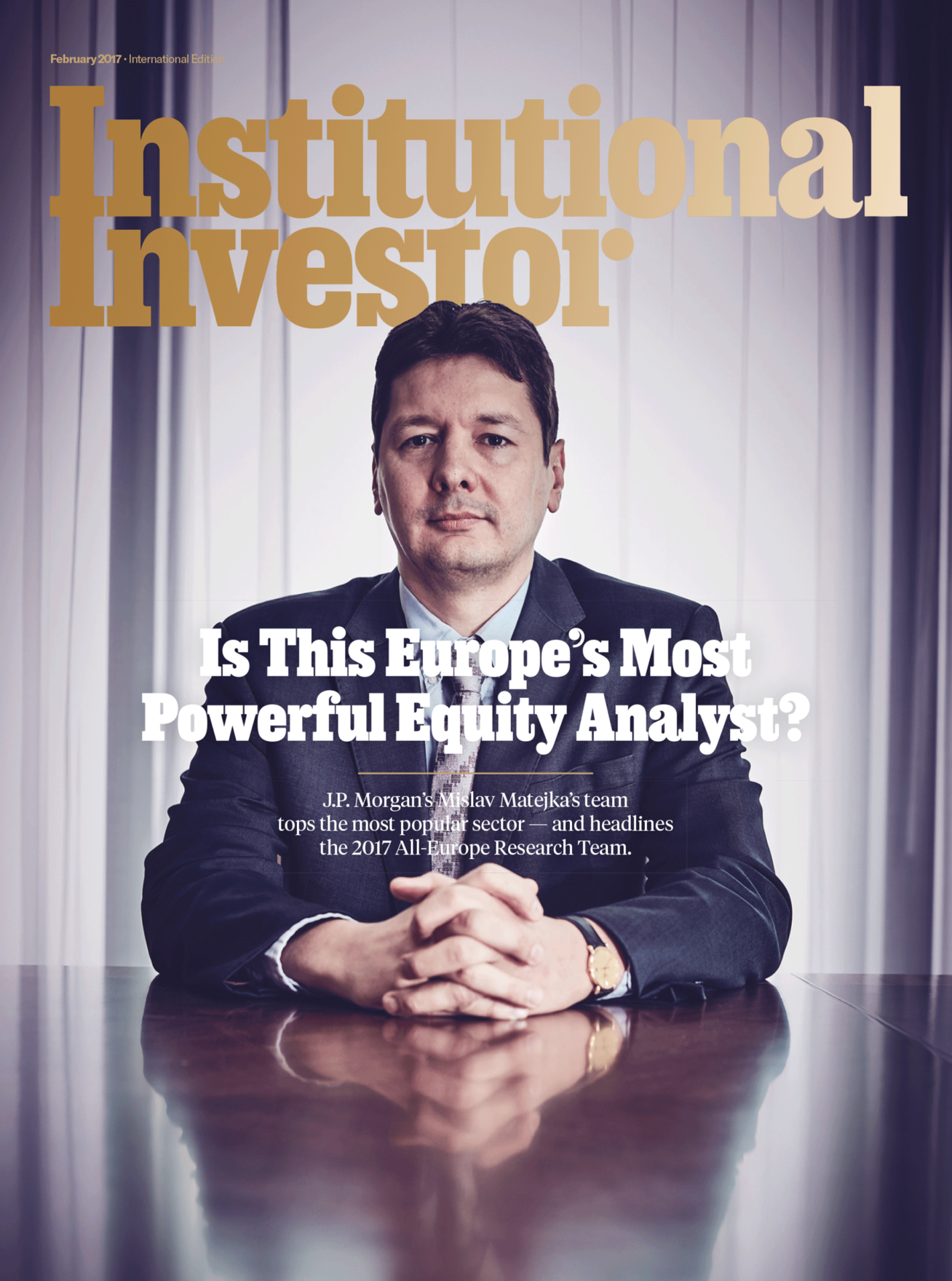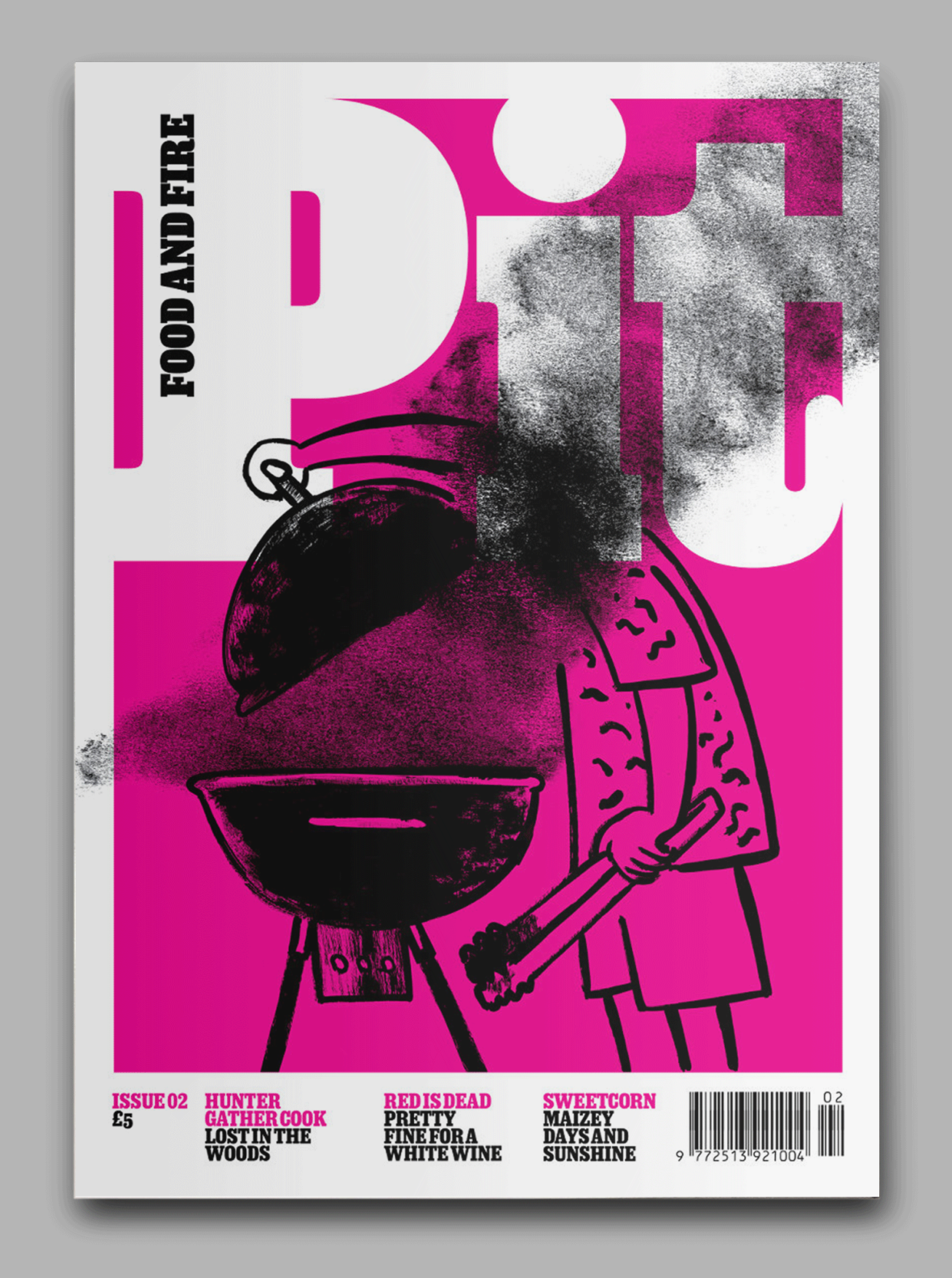
Bold, mechanistic, and characterful, Sunday Clarendon is an elegant slab serif designed in the vein of early Egyptian typefaces, including its namesake Clarendon. Sunday Clarendon is characterised by angular serifs and blunt terminals. The font has a distinctive voice and is available in a wide range of weights, from a delicate ‘Thin’ to an impactful ‘Black’ – the extreme weights are display-orientated, while the middle weights are carefully tailored for text.
| Font name: | Sunday Clarendon |
| Font category: | Serif/Slab |
| Styles: | Thin Thin Italic Light Light Italic Regular Italic Medium Medium Italic Semibold Italic Bold Bold Italic Black Black Italic |
| Designer: | Henrik Kubel |